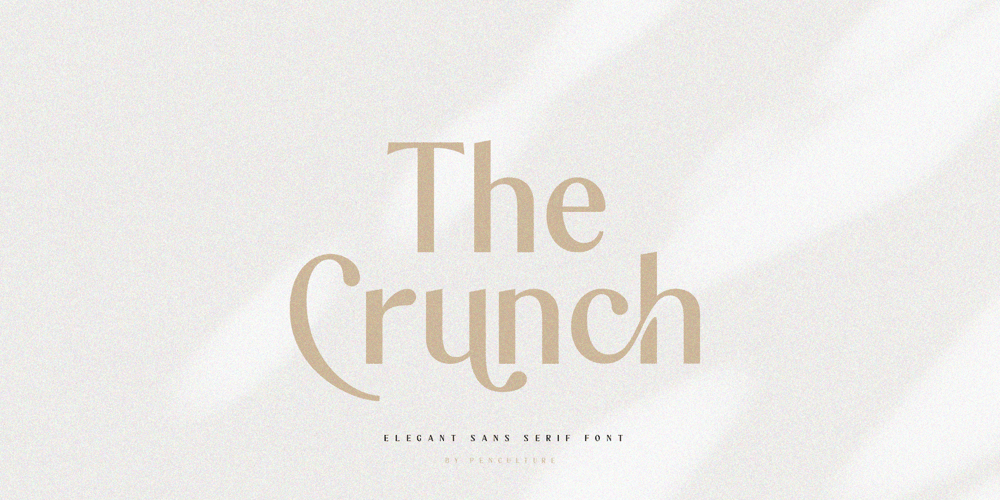
The Crunch Font Family was designed by Revo Farsiky and published by Pen Culture. The Crunch contains 1 styles and family package options. Introducing “The Crunch – Elegant Sans Serif Font”The Crunch is a ligature serif font that perfect for any kind design project like branding, logo design, poster, embroidery and much more. This font has elegant ligature and much of alternate, so you can mix and match to create sensational design.I really hope you enjoy it – please do let me know what you think, comments & likes are always hugely welcomed and appreciated. More importantly, please don’t hesitate to drop me a message if you have any issues or queries.Thank you